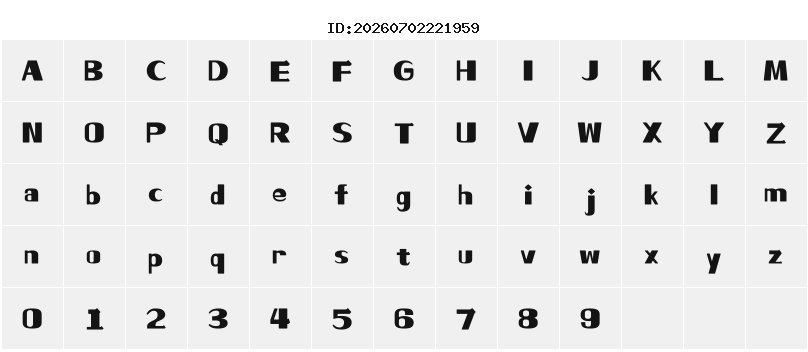
238-上首妙趣体 Preview
• Font Name: 238-上首妙趣体
• Font ID: 238-SS Miao Qu Ti:Version 4.00
• Full Font Name: 238-上首妙趣体
• Version: Version 4.00 April 12, 2023
• PostScript Name: 238-SSMiaoQuTi
• Character Count: 7567
• Manufacturer: 上首造字
About 238-上首妙趣体.ttf
238-上首妙趣体.ttf is a modern, elegant sans-serif font designed for ultimate readability and visual harmony. Perfect for branding, headlines, web design, and print materials.